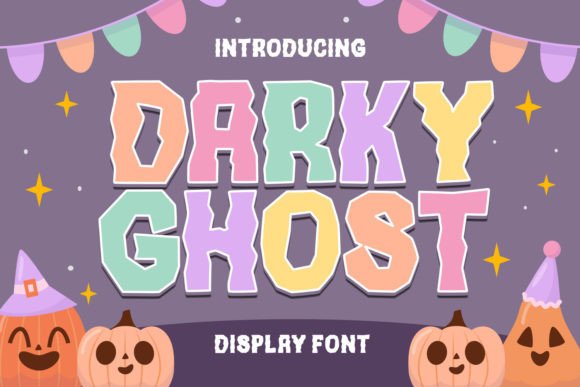
Welcome to the realm of "Darky Ghost" font – a spellbinding creation from Typefar, designed to bring captivating Halloween life to your designs. This display font is a mesmerizing fusion of vibrant colors and eerie aesthetics, conjuring a world of ghostly delight.
Unleash your creativity with "Darky Ghost" and witness its enchanting transformation in your Halloween-themed designs. Its rich, dark color palette weaves an atmosphere of mystery and intrigue, while its whimsical and spooky undertones invoke the spirit of Halloween.
Create posters that come alive with the essence of a colorful Halloween night, complete with playful spookiness. Cast a spellbinding aura on party invitations, effortlessly transporting guests into a world of ghostly delight. Let "Darky Ghost" elevate your digital designs, social media posts, and any other creative endeavor that calls for a touch of Halloween magic.
Experience the captivating power of "Darky Ghost" and embrace the enchantment of Halloween. Its vibrant hues and playful eeriness will leave an unforgettable impression on all who lay their eyes upon it. Let this font become your creative companion, igniting your imagination and painting your designs with the colors of the spookiest night of the year.